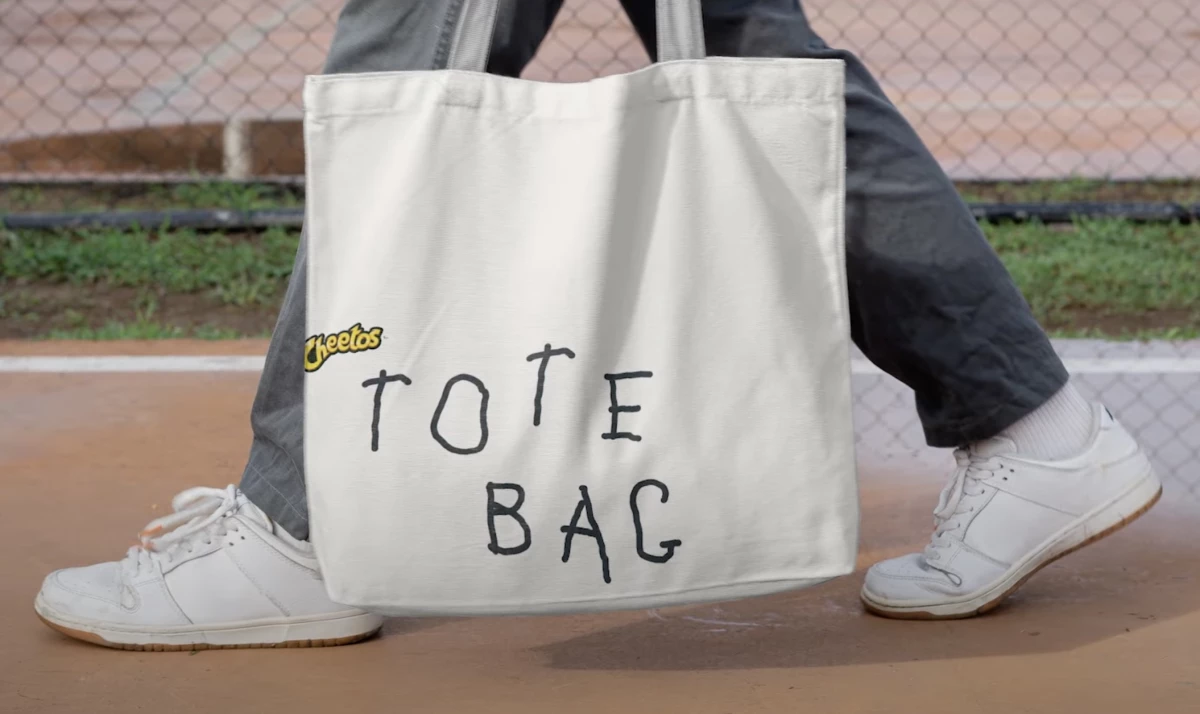
PepsiCo Foods snack brand Cheetos has just introduced a new typeface that's inspired by the brand's iconic bright orange fingertips.
Made to celebrate National Handwriting Day, "The Other Hand" is the world's first font created by a designer's non-dominant hand (because they were busy snacking on a bag of Cheetos).
This marks a new chapter for the brand's "Other Hand" brand platform, which centers around Cheetos lovers living life with their dominant hand covered in cheese flavoring.
The brand has made the font available for free on its website, inviting everyone to use it creatively for work, school, or personal projects, encouraging widespread engagement.
Cannes Lion of St. Mark winner and Goodby Silverstein & Partners Founder Rich Silverstein designed the font alongside his team at Silverstein Goodby & Partners, the full-service advertising agency's design arm.
In a statement, he emphasized just how much the font embodied the spirit of Cheetos:
"It's a testament to the countless hours spent crafting every detail. Doing it all with our non-dominant hand was an experience we'll never forget."
Users with the craziest, most outrageous uses for the wacky typeface can post photos on social media tagging @Cheetos for the chance to win a limited-edition bag of Cheetos designed with the font.
Additionally, the brand is also launching a browser plug-in that transforms the font on any website into "The Other Hand."
This effort doubles down on Cheetos' adventurous marketing and irreverent humor, adding a new layer to its brand platform.
It's an incredibly creative application of the fan-favorite snack's brand voice that's already inherently fun.
Offhand Design
A short documentary-style video posted on the brand's social media delves into the design process behind the chaotic typeface.
It depicts the SG&P team analyzing over a thousand hand-drawn fonts and obsessing over the little details while snacking on bags of Cheetos with their dominant hands.
"When you design a typeface, you're designing a voice for a brand and you have to know what that brand is before you even start designing. It's a big responsibility," Silverstein seriously says.
"After all, this is more than just a font. It's design in its purest form," Ryan Self, SG&P's executive design director, said.
But then Silverstein points out a small problem, raising his right hand with orange fingertips: "You gotta use the other hand."
"'The Other Hand' font is perfection in design. It's our greatest achievement yet. It will change the way people think about typography for years, even centuries to come," Self cheekily states.
As it comes to a close, the video hilariously shows how the font will "change the world of design" with one-star reviews that state, "Worst font ever."
Cheetos first launched "Other Hand" back in April with a hilarious set of ads.